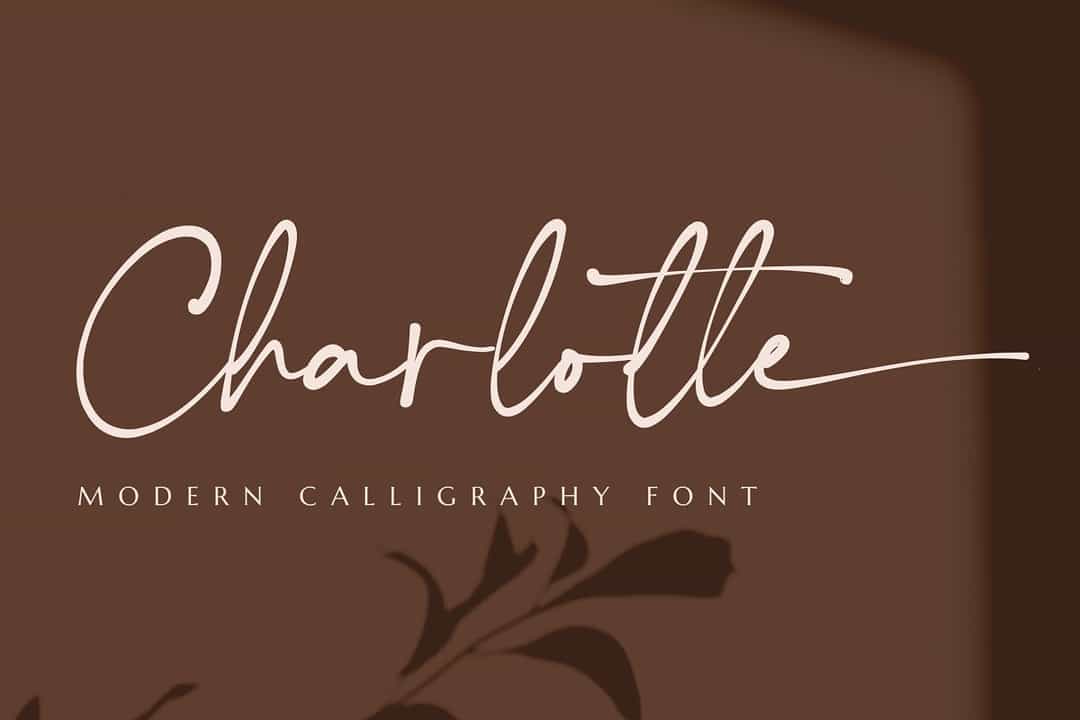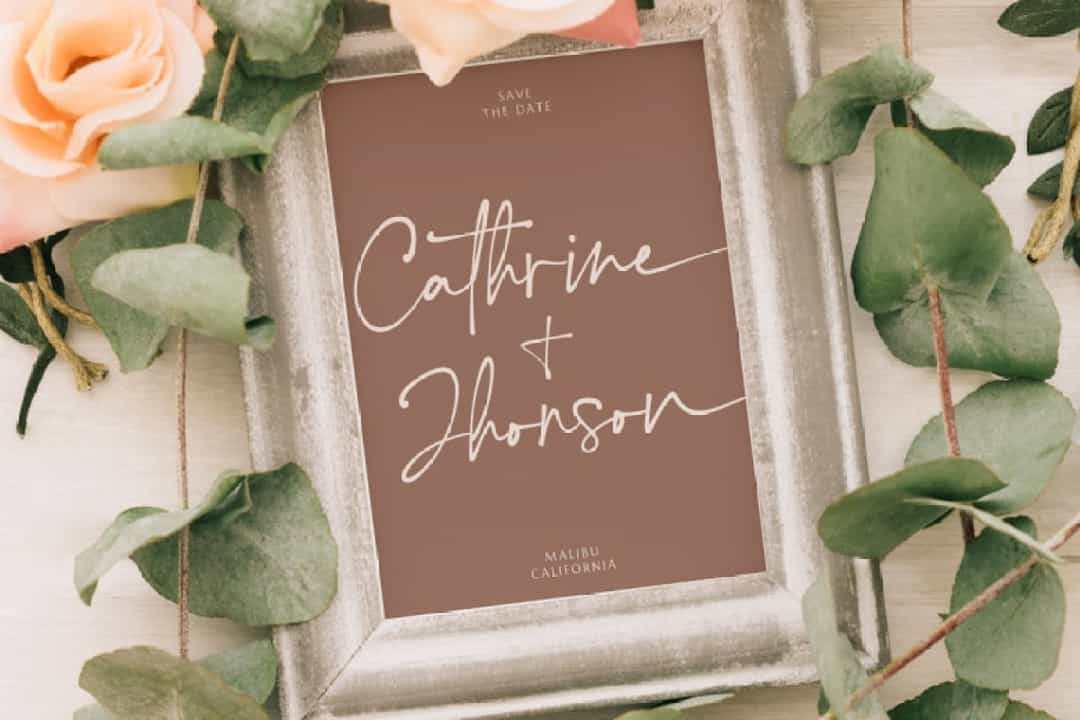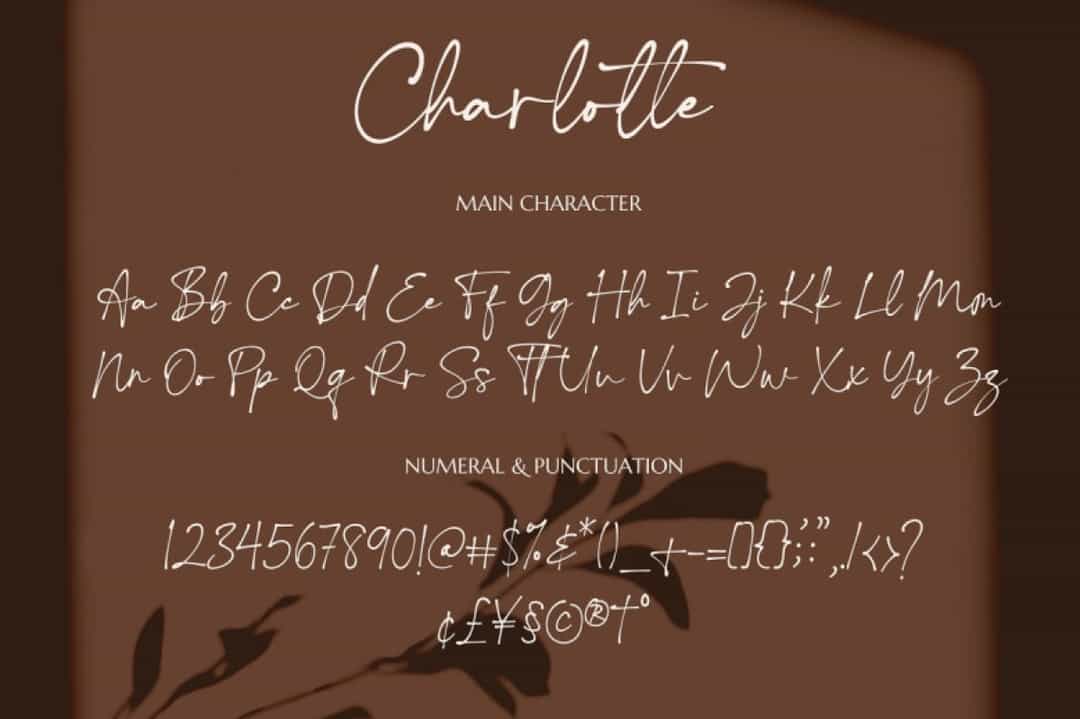
Charlotte is a graceful and natural calligraphy handwritten script font suitable for any kind of invitation, greeting, quotation, card, branding or logo and etc.